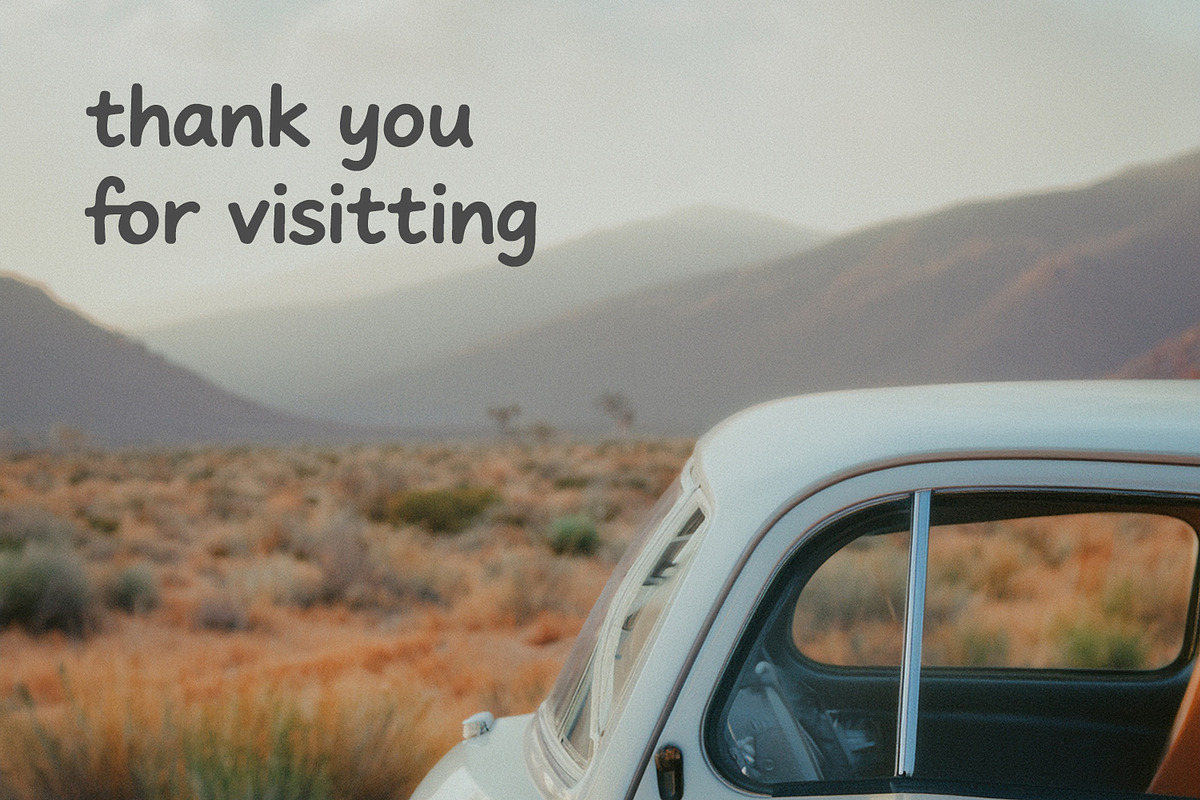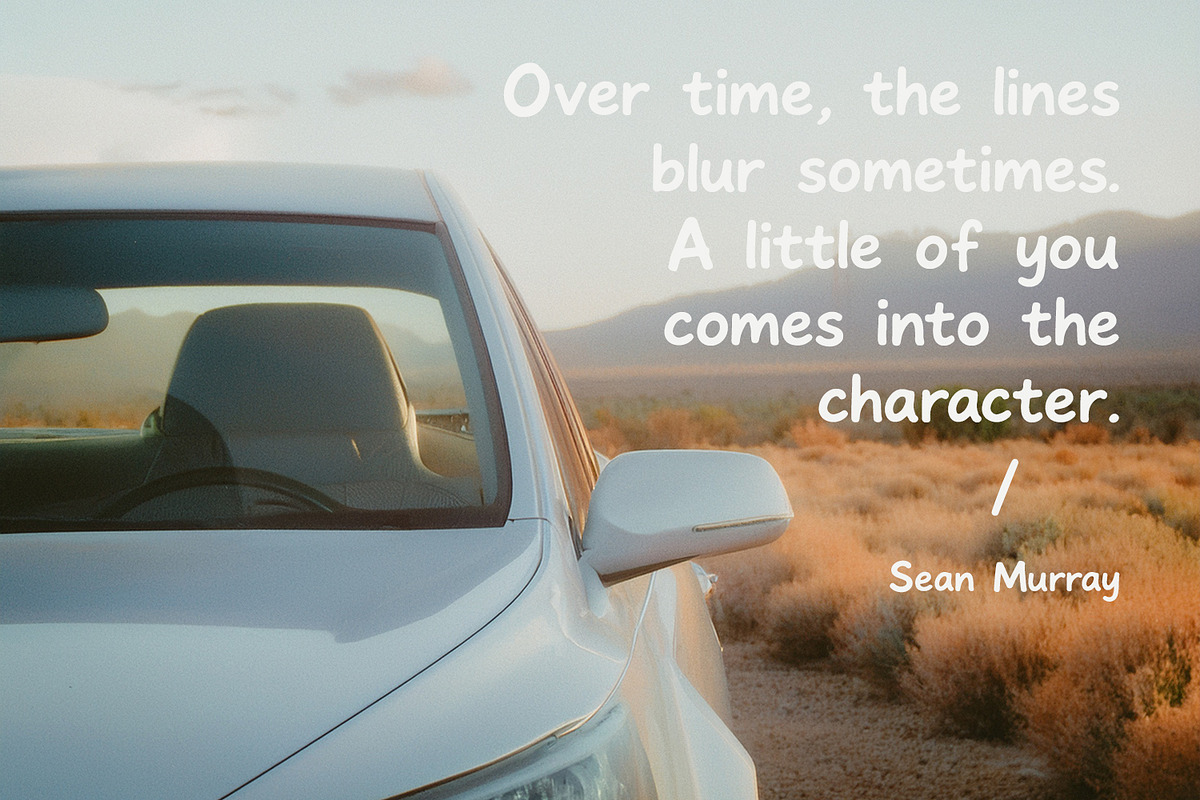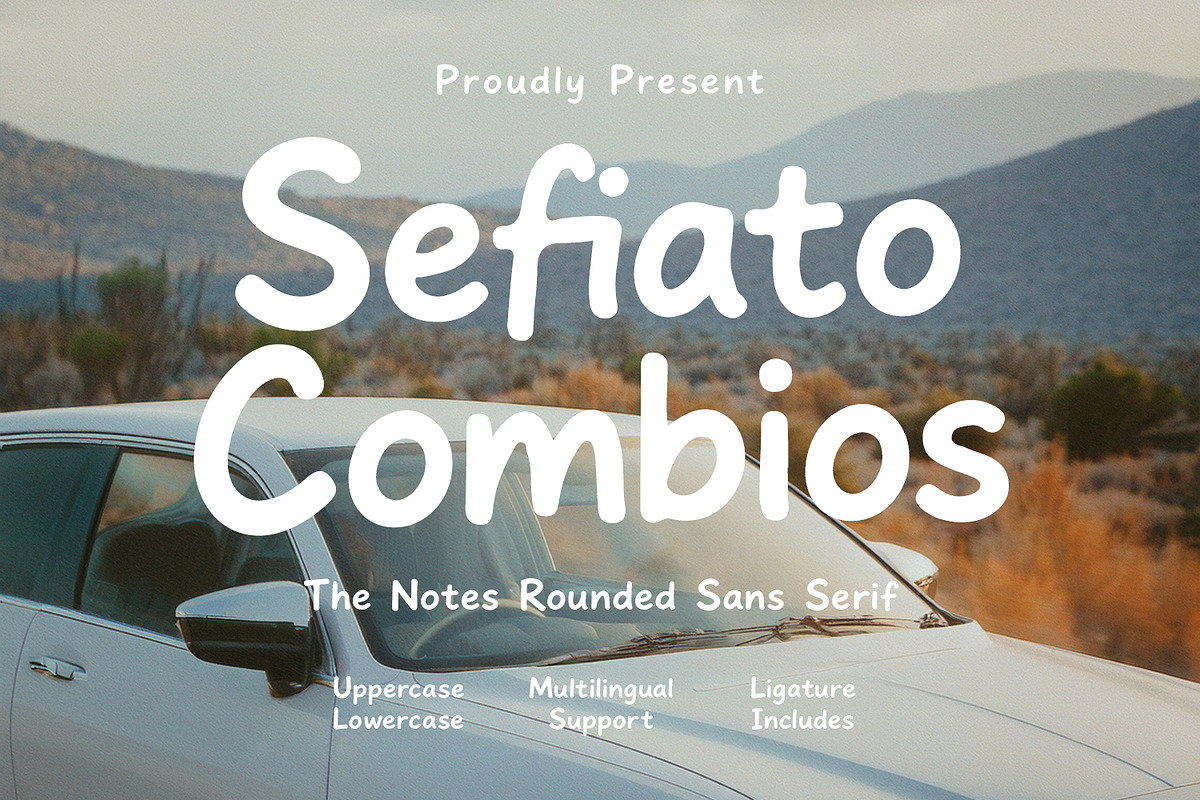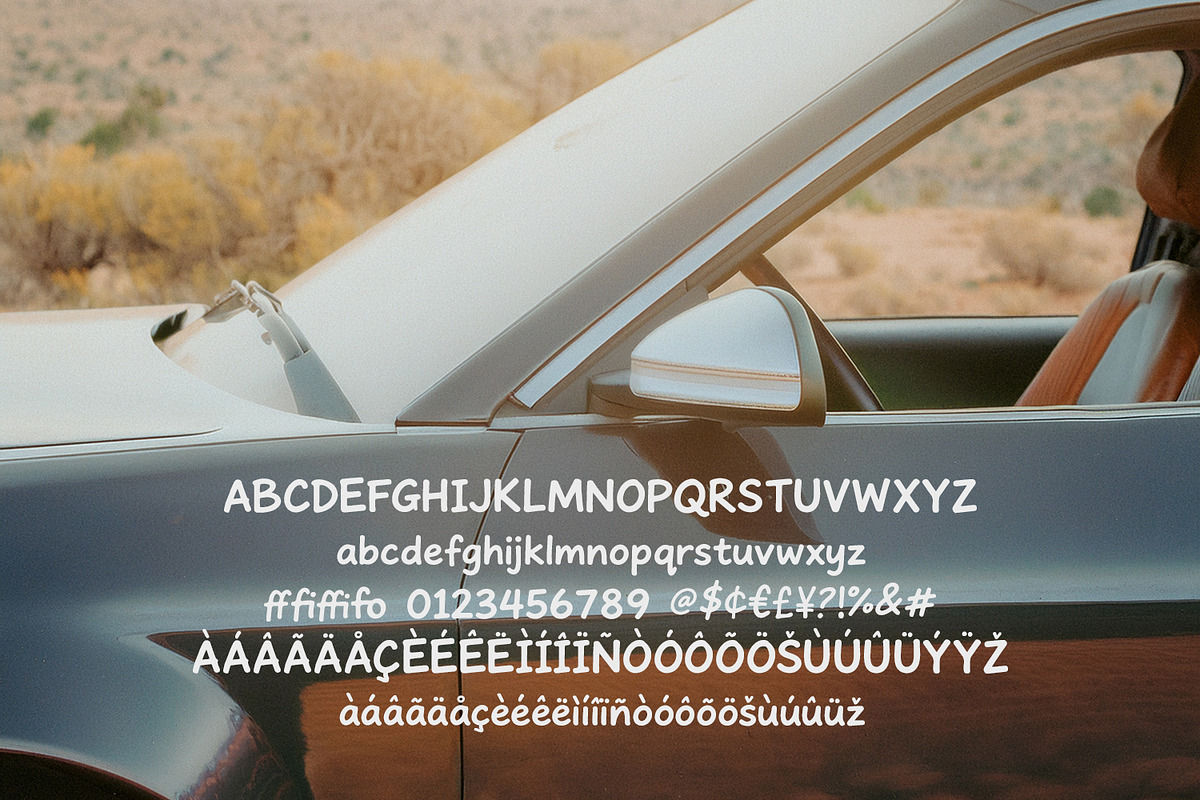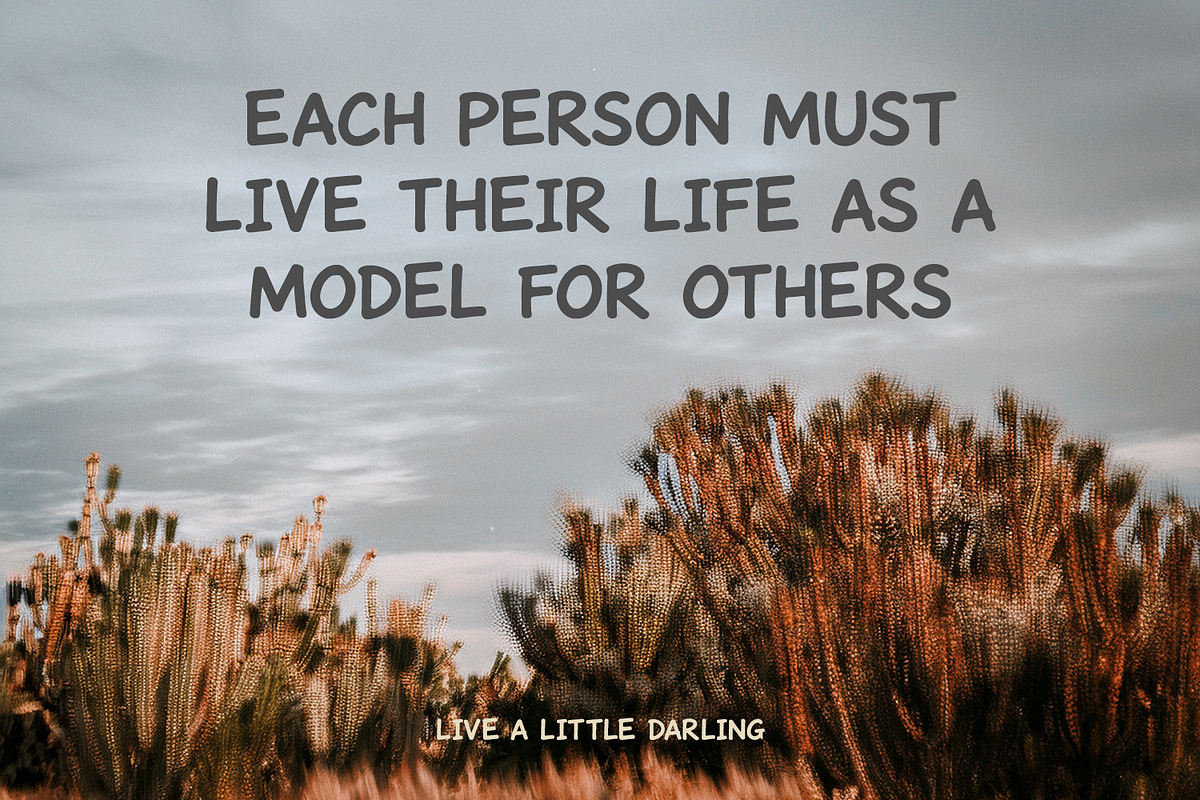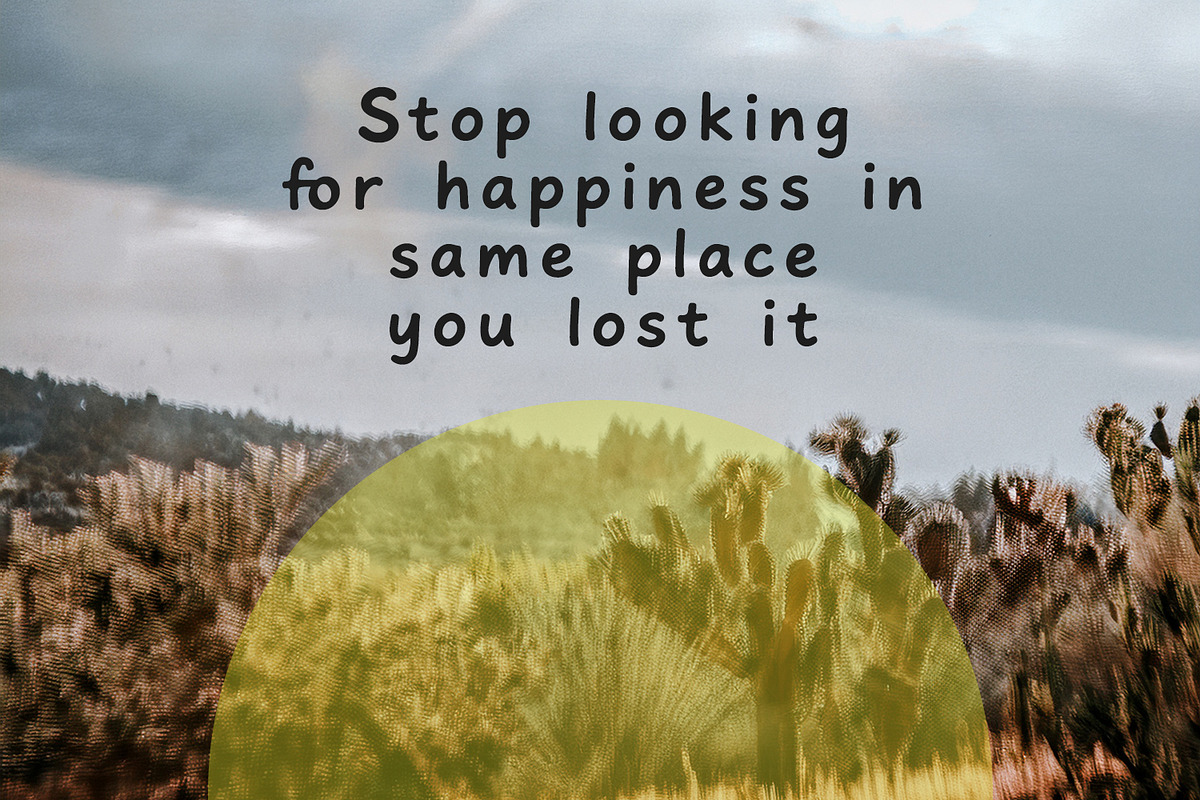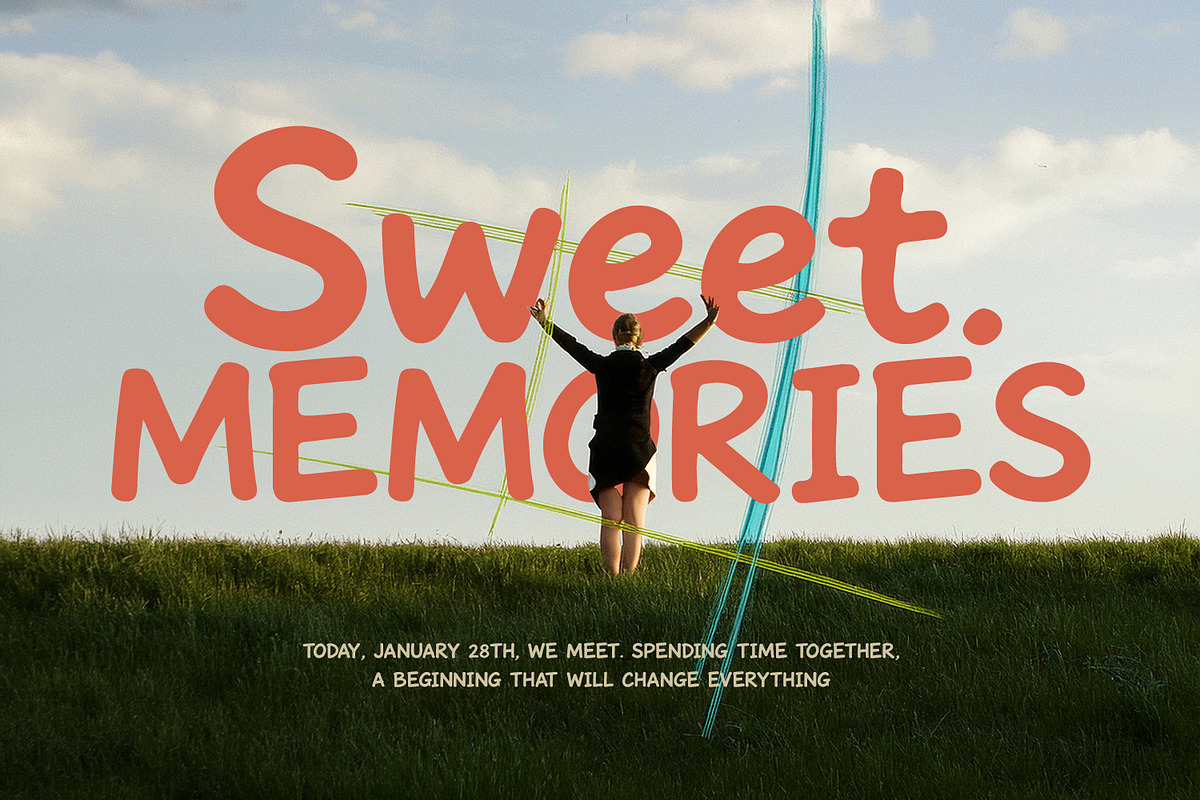
Sefiato Combios Rounded Sans Serif
Sefiato Combios is a rounded sans serif typeface designed to bring warmth, clarity, and a modern touch to visual projects. Characterized by smooth edges and balanced letterforms, this font offers a relaxed yet professional aesthetic suitable for various design applications. Its clean, soft structure makes content highly readable across digital and physical media.
Equipped with uppercase, lowercase, numbers, symbols, ligatures, and extensive multilingual support, Sefiato Combios provides versatility for branding, editorial layouts, poster design, and creative packaging. Whether used for bold headlines or subtle body text, its friendly design creates an inviting atmosphere that enhances overall visual communication.